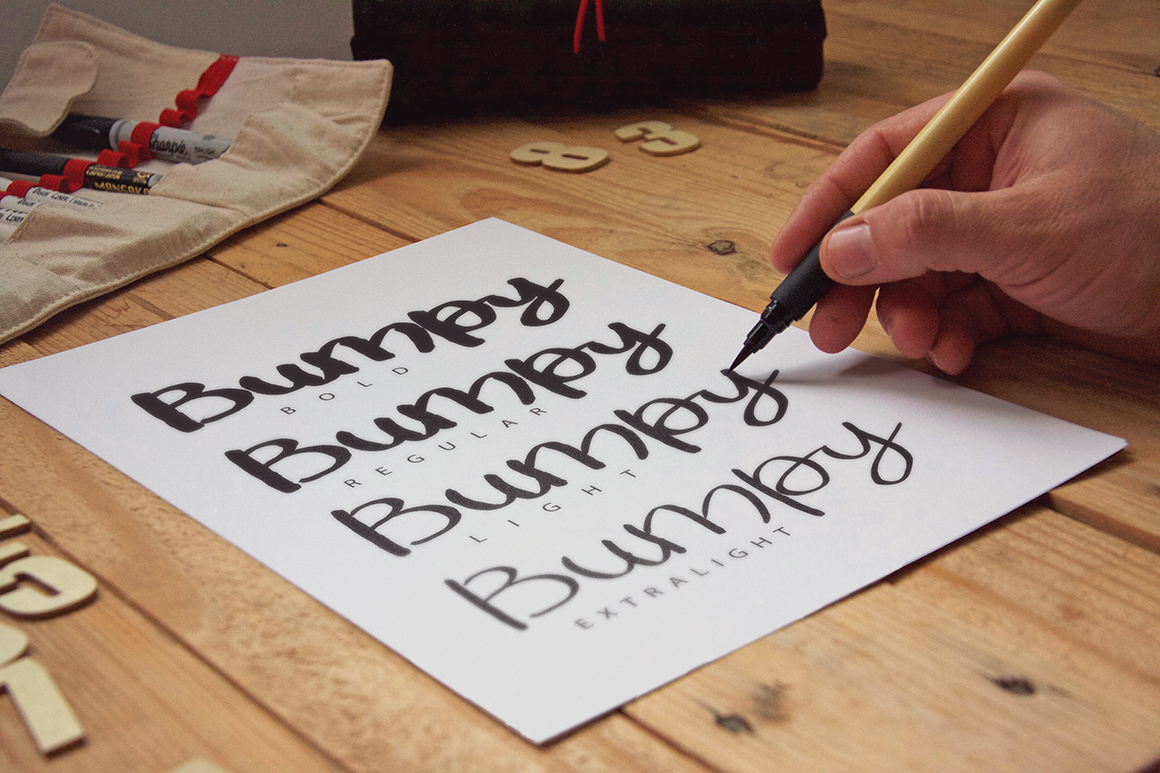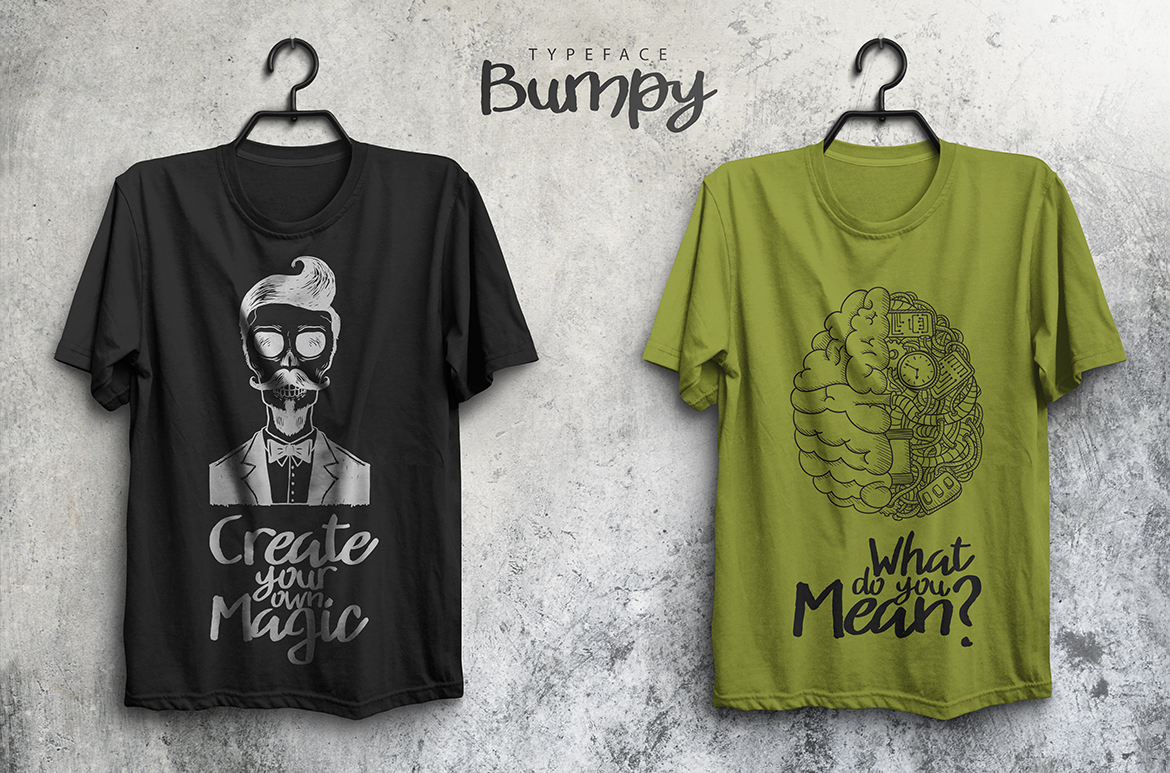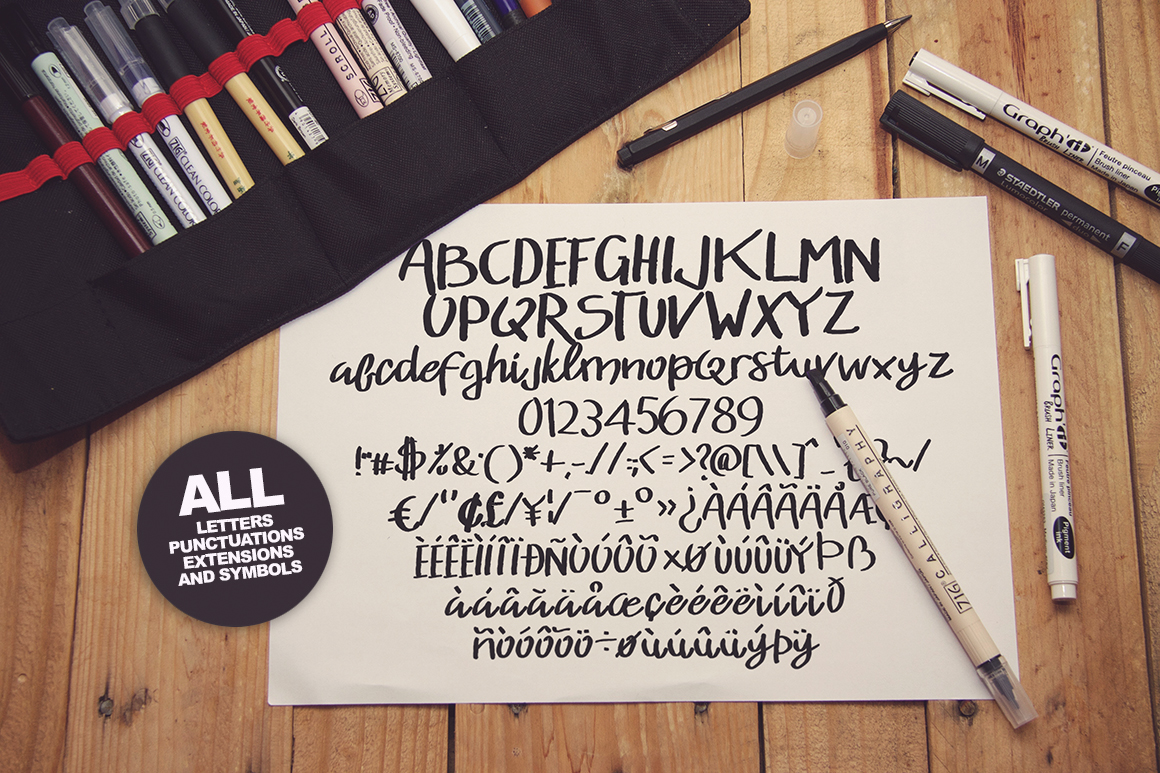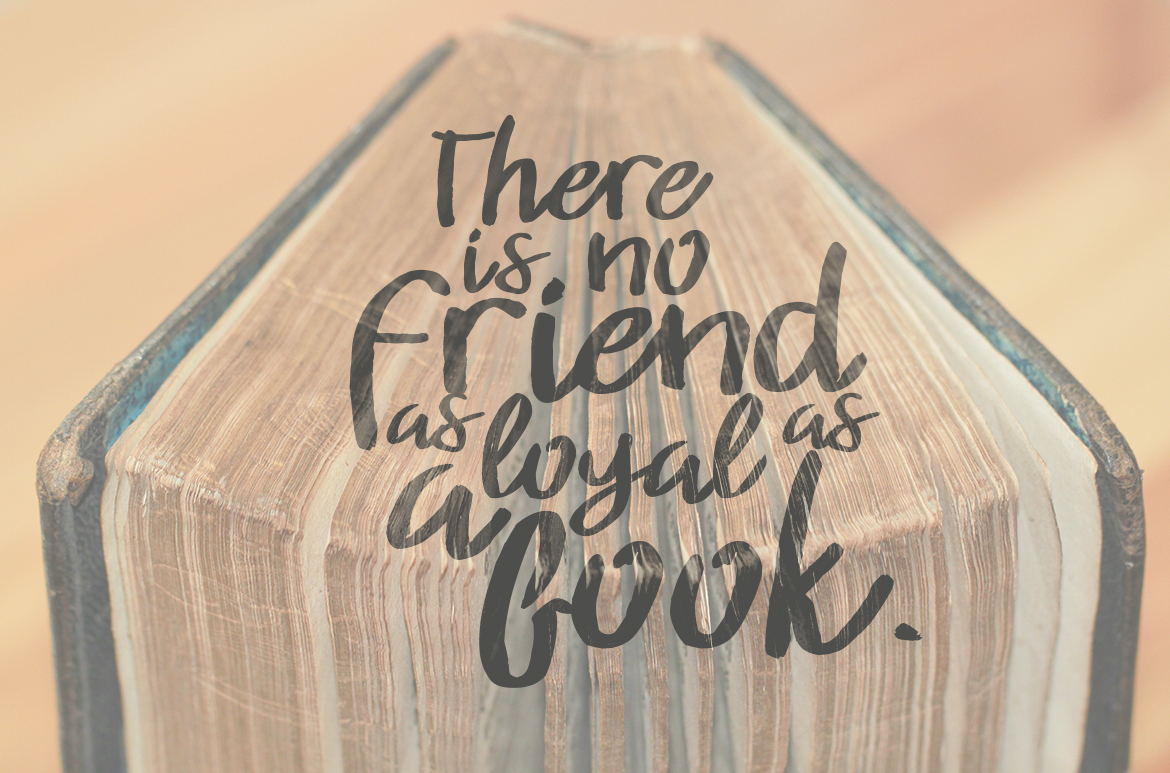
Bumpy Font: The Cute Hand-Drawn Font for Your Creative Projects
Are you a designer or crafter looking for a unique and playful font to add a personal touch to your projects? Look no further than Bumpy Font! Bumpy is a cute hand-drawn font that is sure to bring a smile to your face and a touch of whimsy to your designs.
What is Bumpy Font?
Bumpy Font is a hand-drawn font that features bold, playful letters with a charmingly irregular texture. The font is designed to look like it was drawn by hand, with each letter and number carefully crafted to have its own unique character. The result is a font that is both fun and quirky, perfect for adding a personal touch to your designs.
Characteristics of Bumpy Font
So what makes Bumpy Font so special? Here are just a few of its key characteristics:
- Hand-drawn: Bumpy Font is a truly hand-drawn font, with each letter and number carefully crafted to have its own unique character.
- Playful: Bumpy Font is a playful font that is perfect for adding a touch of whimsy to your designs.
- Bold: The font features bold letters that are sure to stand out in any design.
- Irregular texture: The font has a charmingly irregular texture that gives it a unique, hand-drawn feel.
Uses for Bumpy Font
So what can you use Bumpy Font for? The possibilities are endless! Here are just a few ideas to get you started:
- Invitations: Use Bumpy Font to create playful, eye-catching invitations for parties, weddings, and other special events.
- Signs: Bumpy Font is perfect for creating signs for businesses, events, and other applications.
- Social media graphics: Add a touch of personality to your social media graphics with Bumpy Font.
- Crafting projects: Bumpy Font is a great choice for crafters who want to add a personal touch to their projects, such as scrapbooking, card making, and more.
Why Choose Bumpy Font?
So why should you choose Bumpy Font for your next project? Here are just a few reasons:
- Unique: Bumpy Font is a truly unique font that will help your designs stand out from the crowd.
- Versatile: Bumpy Font can be used for a wide range of applications, from invitations to signs to social media graphics.
- Fun: Bumpy Font is a fun font that is sure to bring a smile to your face and a touch of whimsy to your designs.
Tips for Using Bumpy Font
Here are a few tips for getting the most out of Bumpy Font:
- Experiment with colors: Bumpy Font looks great in a wide range of colors, so don’t be afraid to experiment and find the perfect hue for your design.
- Mix and match: Try pairing Bumpy Font with other fonts to create a unique and eye-catching design.
- Play with texture: Bumpy Font has a charmingly irregular texture, so try experimenting with different textures to add depth and interest to your design.